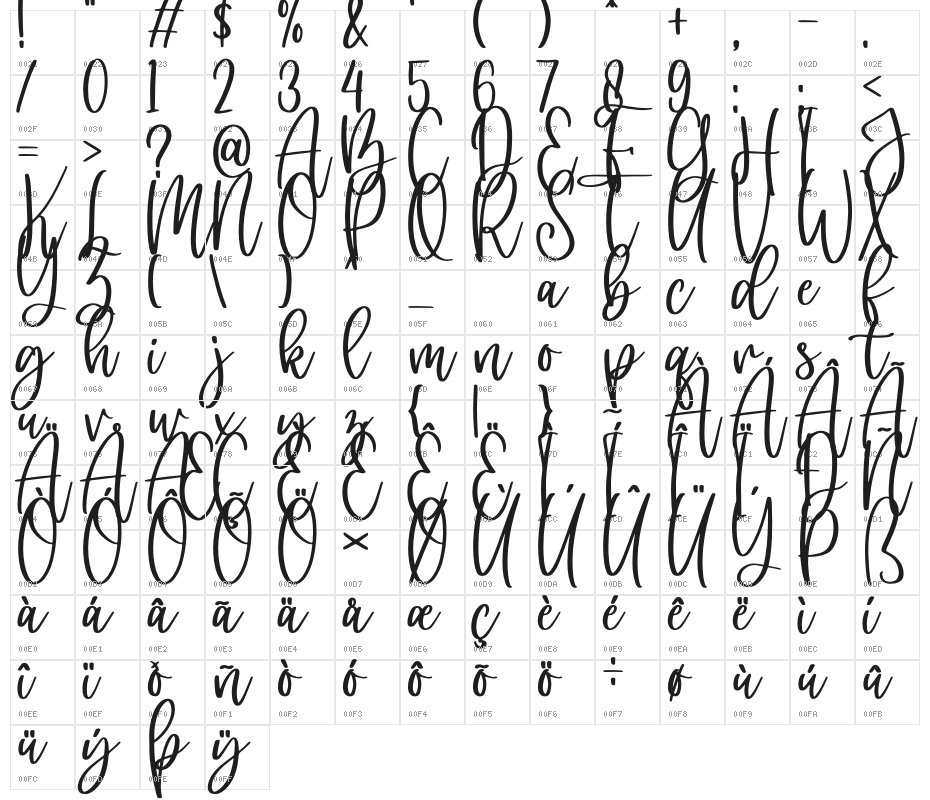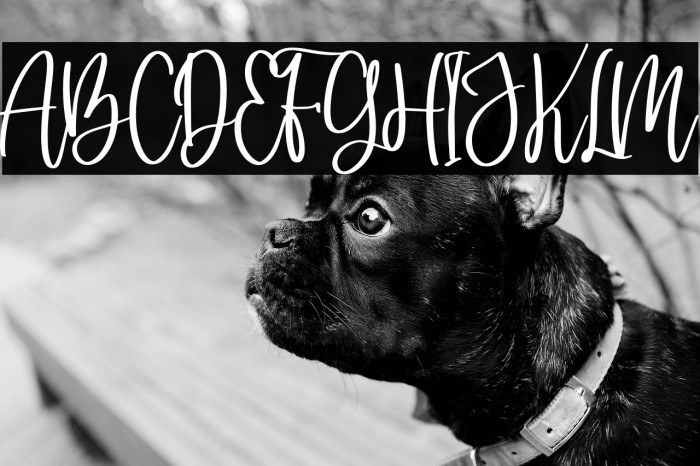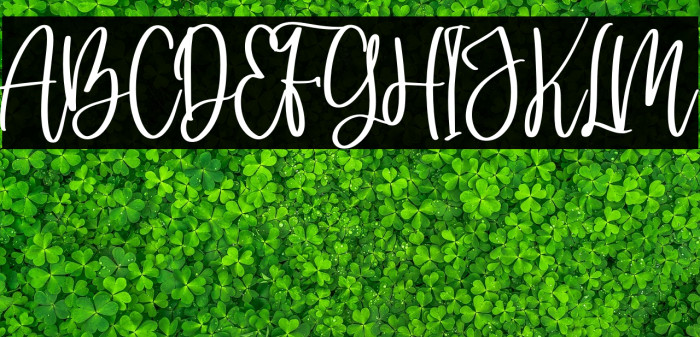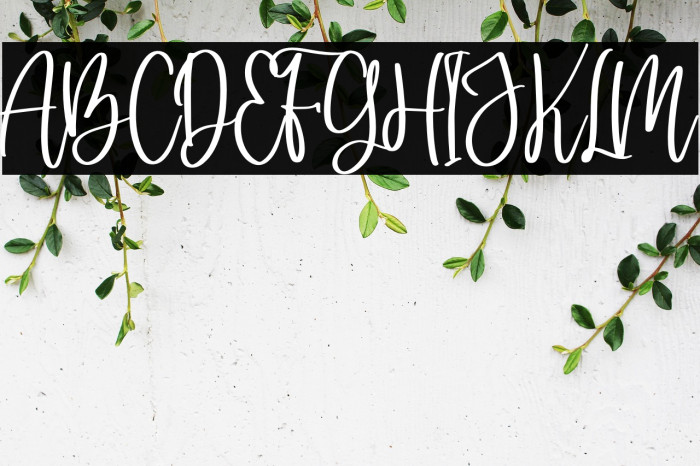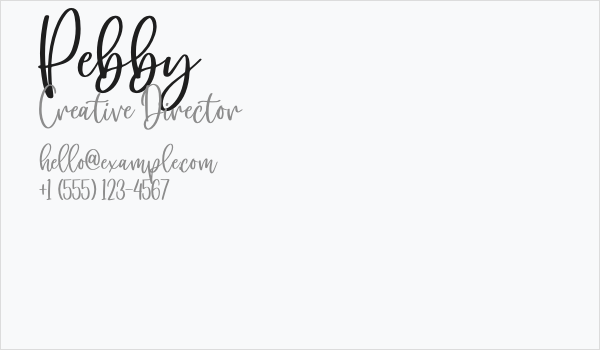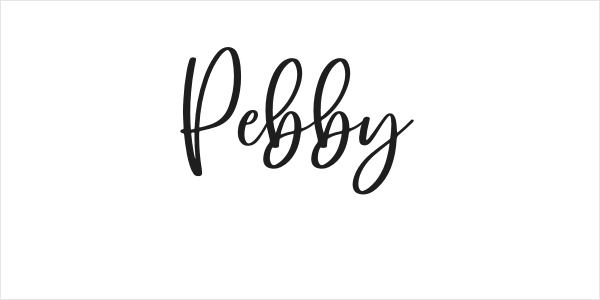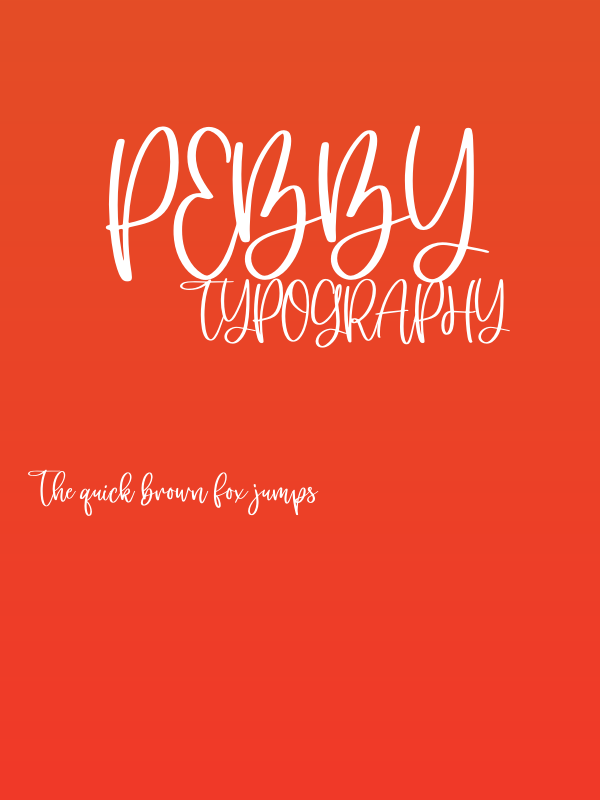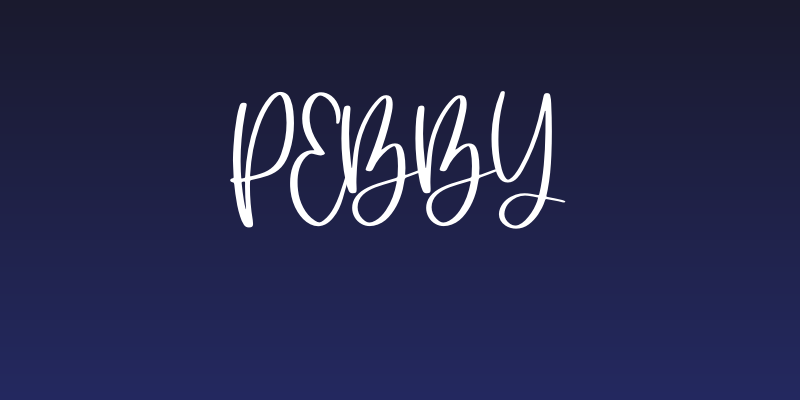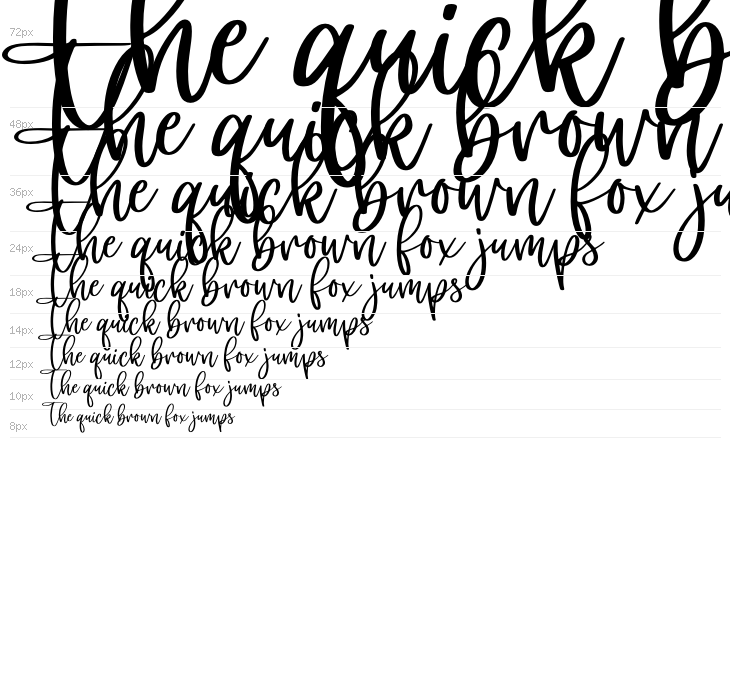
Pebby Font
Pebby Description
This font features a lively and flowing script style, characterized by its elegant, cursive letterforms. The uppercase letters are tall and slightly narrow, with playful loops and swirls that add a whimsical touch. The lowercase letters maintain a consistent flow, with smooth connections between each character, creating a harmonious and cohesive appearance. The numbers and special characters are designed to match the overall script style, ensuring a seamless integration with the alphabet. This font exudes a sense of creativity and personal touch, making it ideal for projects that require a handwritten or artistic flair.